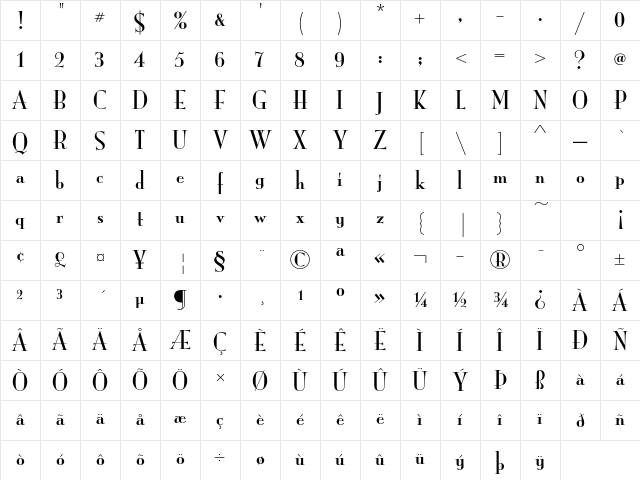
Complete ITC Mona Lisa Std Solid glyph index. Displaying only characters natively supported by ITC Mona Lisa Std Solid font.
ITC Mona Lisa Std is a composed and adaptable typeface that performs quietly and consistently across a wide range of design contexts.